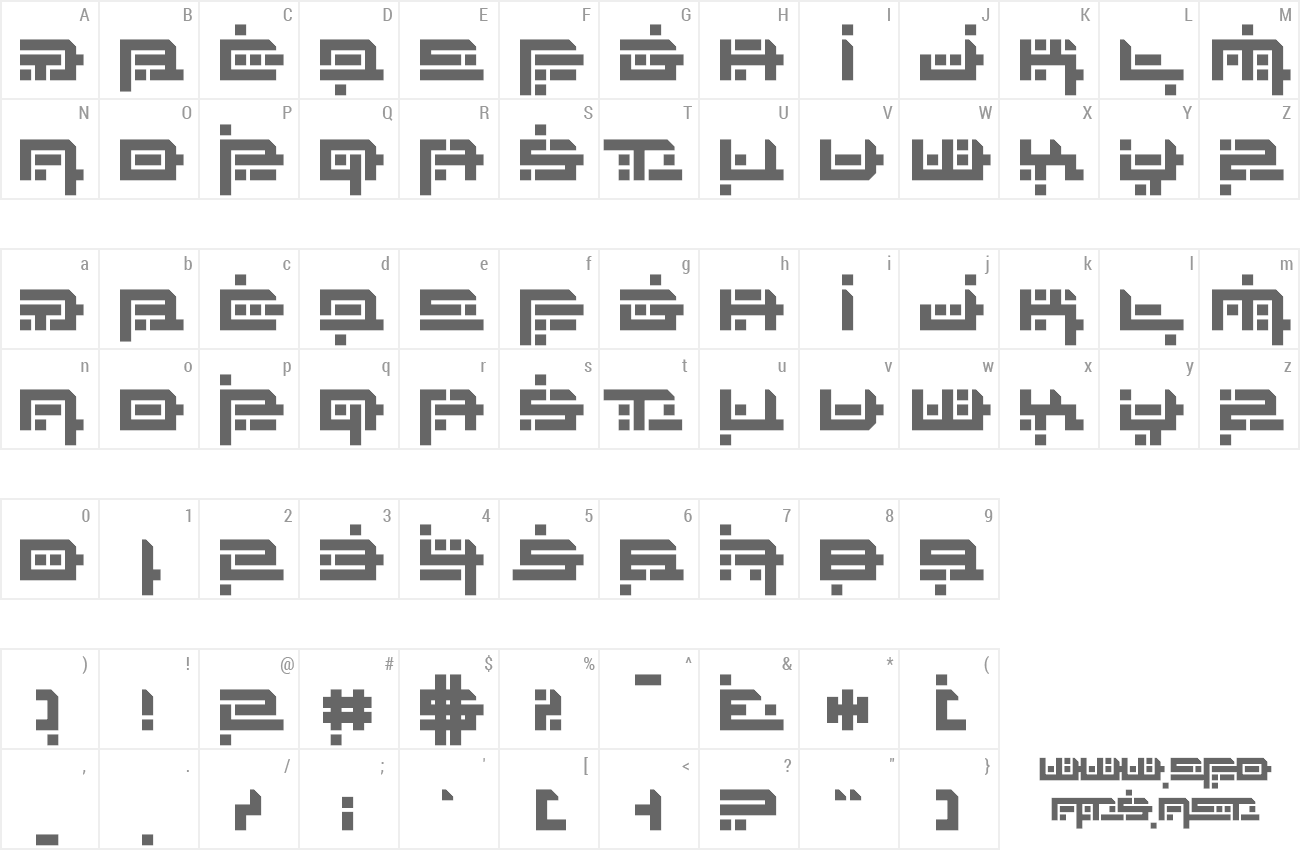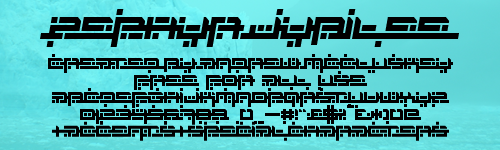
Preview and download Zephyr Jubilee Font. Created by NALGames in Techno Various styles with 100% Free license.
Bizarre font with a lot of flair. Free for all use. Notification on use, commercial or otherwise, is not required, but I genuinely love it when you do - so please consider quickly dropping a line! I don't bite, and I won't refuse you permission to use the font regardless of how it's being used. Credit is much of the same - not required, but it makes me smile when people do :) You're also welcome to donate if you like/use the font (PayPal: nal[at]nalgames[dot]com, or just use DaFont's built in Donate link), but again, optional! |